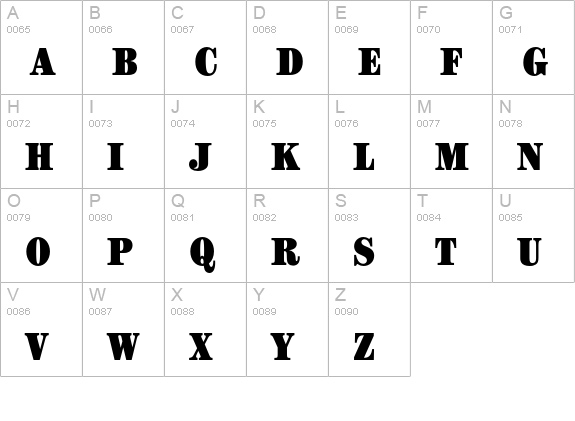
CenturyEF-UltraCondensed Font Details
CenturyEF-UltraCondensed is a sleek and modern font with a unique ultra-condensed style that is perfect for creating a sophisticated and contemporary look in your designs. This font is ideal for projects that require a bold and impactful visual presence, such as headlines, logos, posters, and branding materials. The tight spacing and narrow letterforms of CenturyEF-UltraCondensed make it stand out and command attention with its sharp and edgy appearance. The best part about CenturyEF-UltraCondensed is that it is free to download at FontsMarket.com, making it accessible to all designers and creatives looking to add a touch of elegance and refinement to their projects. Whether you're working on a professional presentation, a stylish advertisement, or a trendy website, CenturyEF-UltraCondensed will help you achieve a polished and contemporary look that will set your work apart. Download CenturyEF-UltraCondensed today and elevate your designs with this striking and versatile font.